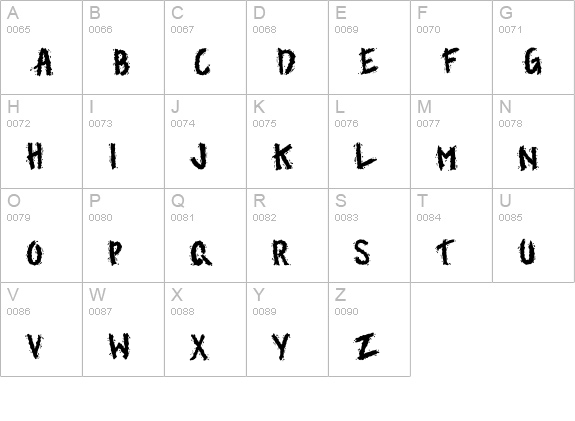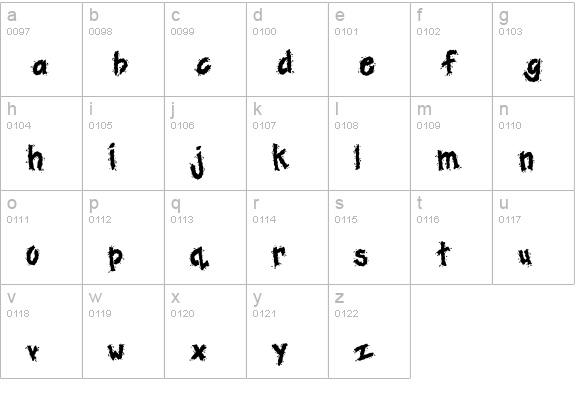
Introducing CK Muddy font, a unique and creative typeface that adds a touch of playful charm to any design project. This font features irregular, hand-drawn characters that exude a fun and casual vibe, perfect for adding a personal touch to your creations. The CK Muddy font is free to download at FontsMarket.com, making it accessible to all designers looking to infuse their work with a touch of whimsy and character. Whether you're working on a poster, logo, or social media graphic, CK Muddy font is sure to stand out and make a statement. Download this delightful font today and let your creativity flow!